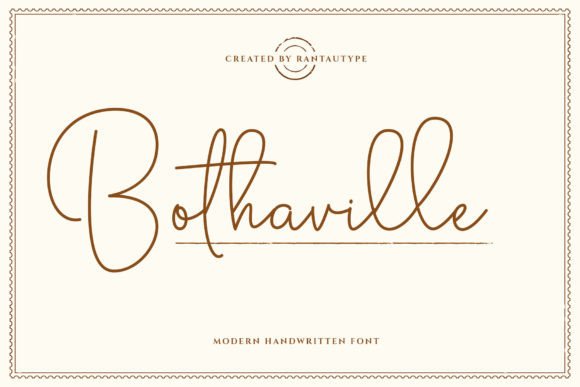
The Elegance of Bothaville Font: A Comprehensive Guide for Designers
As a designer, I’ve had my fair share of struggles when it comes to finding the perfect font for a project. I recall working on a wedding invitation design for a client who wanted something elegant, modern, and feminine. After hours of scouring through font libraries, I stumbled upon Bothaville Font, and it instantly clicked. In this article, I’ll share my experience with Bothaville Font, its features, and how to make the most of it in various design platforms.
A First Impression: What I Love About Bothaville Font
Bothaville Font is a modern monoline style that exudes professionalism and sophistication. Here are some features that I love about it:
• ✨ Premium look: Bothaville Font has a luxurious feel to it, making it perfect for high-end branding and designs.
• ✅ Readability: The font is incredibly readable, even at smaller sizes, making it ideal for body text and captions.
• 🌸 Feminine touch: Bothaville Font has a subtle feminine flair, which is perfect for designs that require a touch of elegance.
• 💡 Catchy and stylish: The font’s unique monoline style makes it stand out from more traditional fonts.
While Bothaville Font is an excellent choice for many designs, there are a few quirks to be aware of:
• 🤔 Limited character set: Bothaville Font may not have an extensive character set, which could limit its use in certain languages or designs that require special characters.
• ⚠️ Not suitable for long blocks of text: While the font is readable, it’s not ideal for long blocks of text. It’s best used for headings, titles, or short paragraphs.
The Designer Inspiration Behind Bothaville Font
Bothaville Font was designed with the modern designer in mind. Its creator aimed to craft a font that would be both elegant and versatile, suitable for a wide range of design projects. While the exact design process is unknown, it’s clear that Bothaville Font was created with attention to detail and a passion for typography.
Q: What type of designs is Bothaville Font best suited for?
A: Bothaville Font is ideal for designs that require a touch of elegance and sophistication, such as wedding invitations, branding, and magazine layouts.
Q: Is Bothaville Font suitable for body text?
A: While Bothaville Font is readable, it’s not ideal for long blocks of text. It’s best used for headings, titles, or short paragraphs.